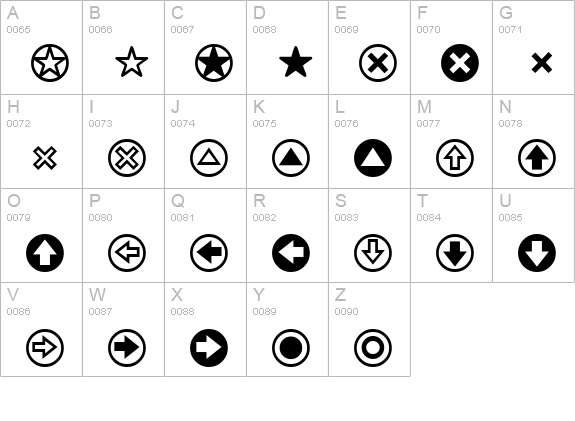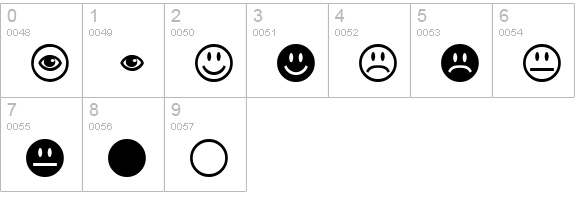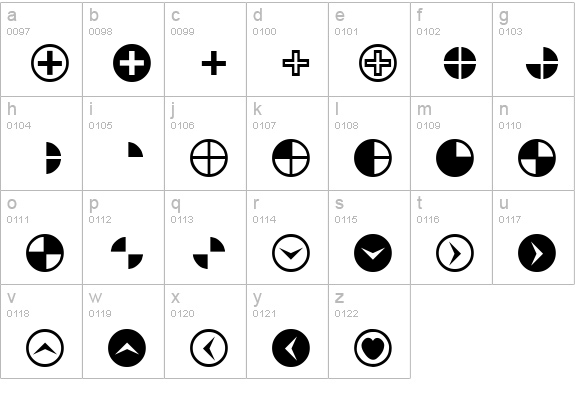
PizzaDude Bullets Font Details
Introducing PizzaDude Bullets, a whimsical and playful font that will add a dash of fun to any design project. With its unique and eye-catching bullet shapes, this font is perfect for creating attention-grabbing headlines, logos, and social media posts. PizzaDude Bullets is not only visually pleasing but also incredibly versatile. Whether you're designing for a pizza restaurant, a children's book, or a quirky brand, this font will bring your ideas to life with its lively and energetic vibe. But what makes PizzaDude Bullets even better is that it is free! That's right, you can download this font for absolutely no cost at FontsMarket.com. Now, you can add a touch of creativity to your projects without breaking the bank. With its wide range of glyphs and characters, PizzaDude Bullets offers endless possibilities for customization. Embrace your inner designer and mix and match the bullets to create your own unique compositions. Get creative with the colors, sizes, and arrangements to truly make your designs stand out from the crowd. So why wait? Download PizzaDude Bullets today and let your imagination run wild. Whether you're a professional designer or just starting out, this font is the perfect addition to your design toolkit. Don't miss out on the opportunity to bring a taste of fun and excitement to your next project. Get your hands on PizzaDude Bullets for free at FontsMarket.com and start creating unforgettable designs now!